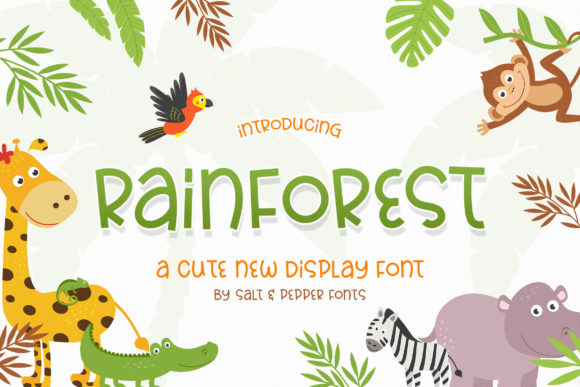
Transport yourself to a lush, verdant realm where imagination flourishes and creativity knows no bounds. Picture yourself immersed in the vibrant tapestry of the rainforest, where every leaf whispers a story and every creature hums a joyful melody. Let the Rainforest Font carry you away to this enchanting world, a realm where your designs will flourish and your words will dance with newfound vibrancy.
Picture this: Your designs adorned with the Rainforest Font, captivating your audience with its playful charm and authentic spirit. Each letter dances across the page like a mischievous sprite, inviting readers to embark on an adventure filled with wonder and discovery. Whether it's a children's activity book, a whimsical school project, or an invitation to a magical birthday party, the Rainforest Font will transform your words into an unforgettable spectacle.
Unleash your inner child and let your creativity run wild with the Rainforest Font. Its playful curves and charming details evoke a sense of nostalgia and wonder, reminding us of the boundless imagination that resides within us all. Let this font be your creative compass, guiding you toward captivating designs that resonate with your audience on a deeper level.
Step into the enchanting world of the rainforest, where nature's symphony harmonizes with the playful whispers of the wind. Allow the Rainforest Font to be your muse, inspiring you to create designs that capture the essence of this magical realm. With its captivating charm and authentic spirit, this font will elevate your creations to new heights, leaving an everlasting impression on all who behold it.